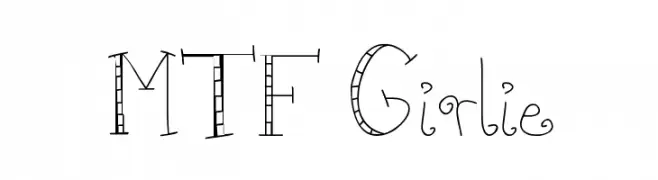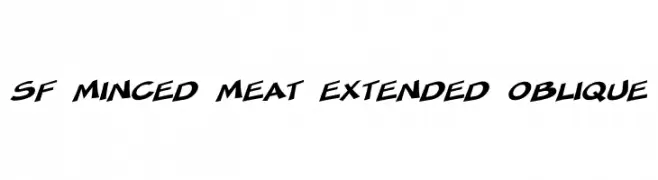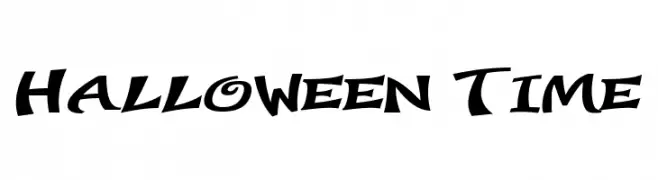
A classic serif font with medium weight and elegant italic style.
A bold, playful, and italicized font with rounded strokes and close spacing.
A playful, casual handwritten font with a dynamic and informal style.
A whimsical, hand-drawn font with decorative stripes and curly lowercase letters.
A bold, oblique font with sharp angles and a dynamic style.
A modern, artistic font with geometric and organic elements.
A bold, dynamic font with playful, slanted characters and thick strokes.